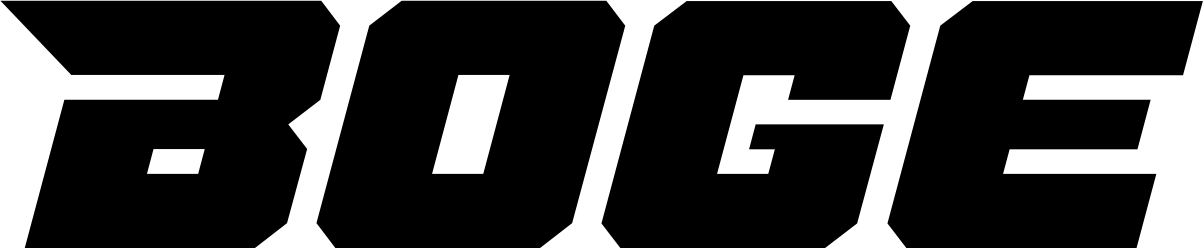
Boge Font
With such considerable sturdiness applied to your typography through its tough characters, your final design will look a whole lot more stunning with Boge.
This blocky font contains sharper variations of letters for the capitals, and the lowercase alternatives, which also retain the appearance of uppercase are less pointy but condensed and retro-styled all the same. Making an excellent choice for logos, packaging, titles of books, and posters, to name a few, this square block font is surely one of the best.
Boge – Bold italic font with sharp angles for dynamic effects. Use ligature characters to give you unlimited designs, this font is great for your work such as posters, logos, branding, covers, banners, t-shirts and headers, or even large-scale artwork
Boge Italic Bold, offers you:
-Boge -italic bold font including Upper & Lowercase characters(ALL CAPS has a
different form characte),
-Ligatures Character